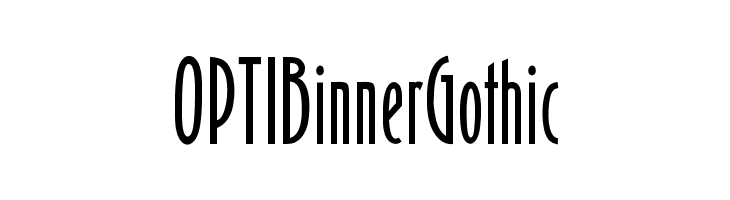
( Mega Type - creativemarket.com/megatype )
A graceful, handwritten script font with elongated, flowing strokes.
( Woodcutter - woodcutter Manero - www.woodcutter.es )
A playful, casual handwritten font with fluid, connected strokes.
( Fonts by Khrys Bosland )
A sketch-like, hand-drawn font with a playful and textured appearance.
( Fonts by www.hindson.com.au )
A classic serif font with elegant numerals and musical notation symbols.
A refined, light, and elegant italic serif font with smooth curves and sharp serifs.
( Fonts by elraposo )
A playful, cloud-like decorative font with star cutouts.
A classic blackletter font with ornate, angular letterforms and a historical aesthetic.
A bold, italicized font with a modern and dynamic style.
An elegant italic typeface with flowing lines and moderate contrast.
( Fonts by mxnsi )
A playful, hand-drawn font with bold, outlined characters.
( Fonts by Tobias Sommer - mentalmenthol.blogspot.com )
A bold, decorative font with a 3D effect and vintage flair.
A modern, wide sans-serif font with excellent readability and a clean design.
A futuristic, geometric font with bold, rounded edges and consistent stroke width.
( Fonts by Khurasan )
A playful, bold font with rounded, bubbly characters.
( Fonts by Amazingmax - Maxim Avdeev )
A bold, geometric outline font with a futuristic and edgy style.
( Fonts by Christophe Feray - www.wcfonts.com )
A bold, geometric font with a modern, stencil-like design.
A playful, textured font with a bubbly, hand-drawn appearance.
( Fonts by Tribby )
A bold, condensed font with a modern and impactful style.
( https://www.behance.net/cjgong )
A bold, futuristic font with rounded, geometric shapes and a digital aesthetic.
A bold, futuristic font with geometric and angular design elements.
( Fonts by Altsys Metamorphosis )
A whimsical and playful font with tall, narrow letters and decorative curves.
A bold and ornate Blackletter font with gothic and medieval influences.